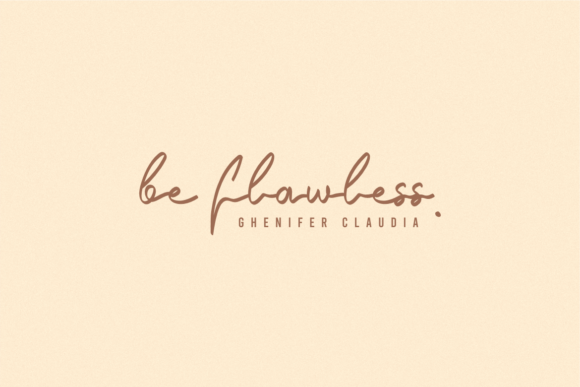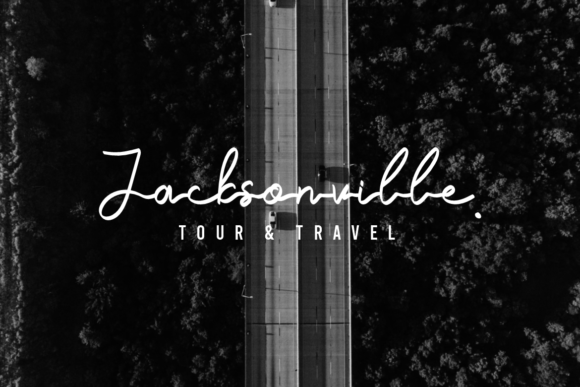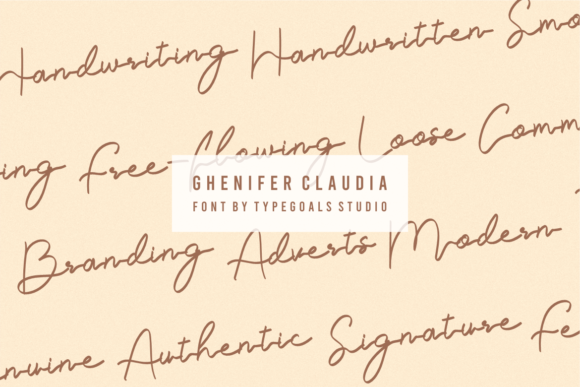
Introduction to Ghenifer Claudia Font
Ghenifer Claudia is a thin lettered and graceful script font.
Fall for its ravishing style and use it to create gorgeous wedding invitations, beautiful stationary art, eye-catching social media posts, and much more .